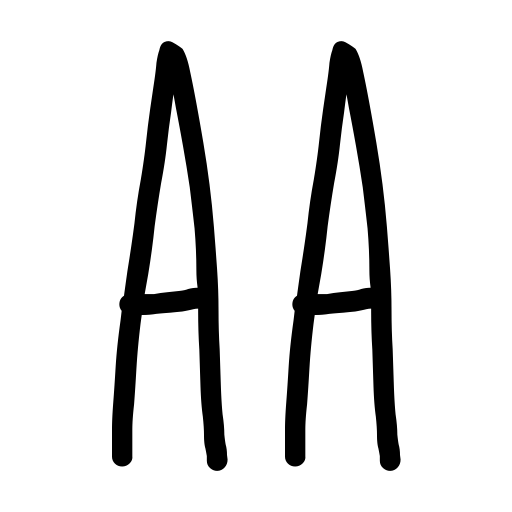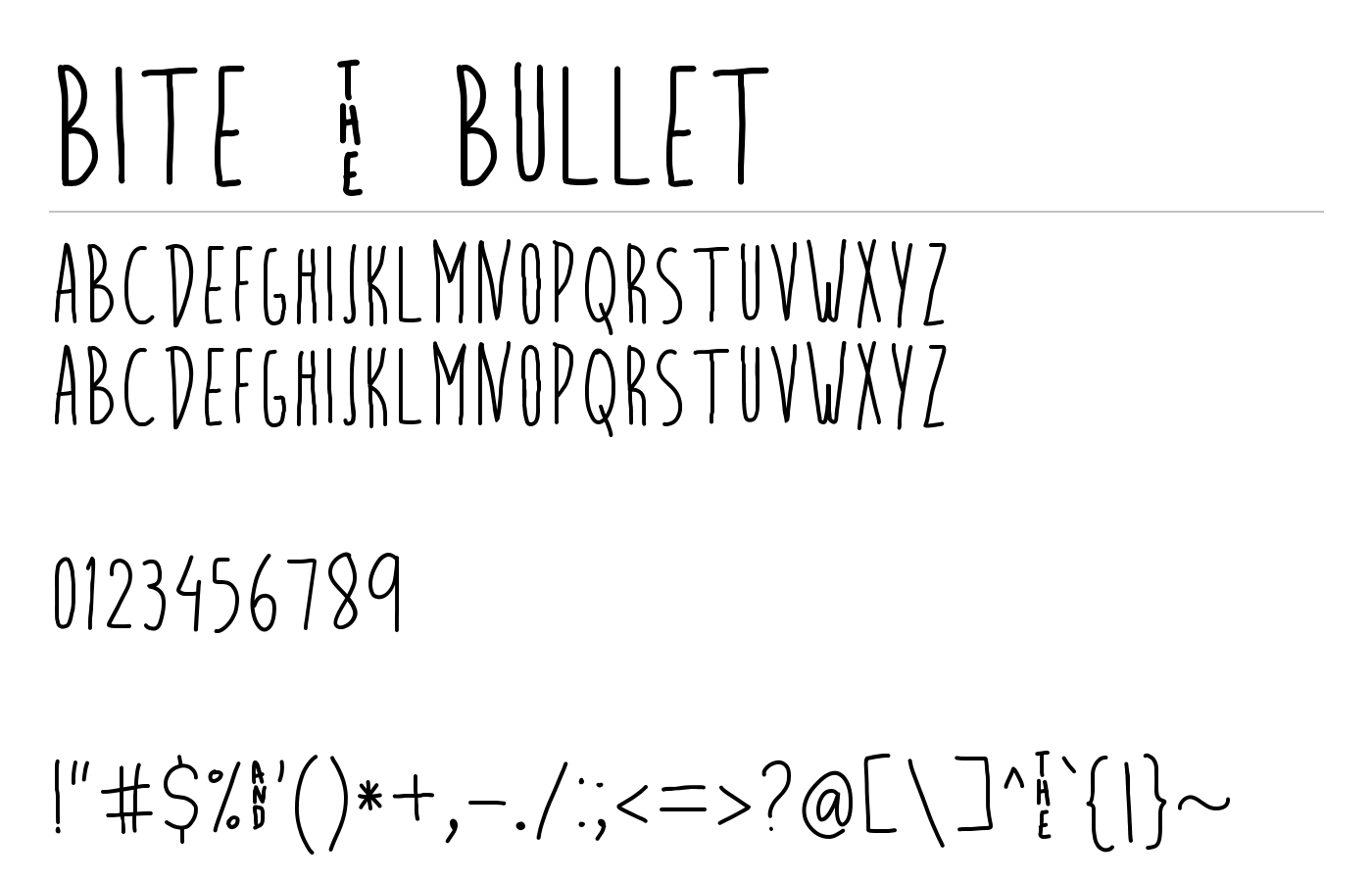
Bite _ Bullet is a tall, narrow sans serif font with a playful, hand-drawn style that feels casual and approachable. Its thin, uneven strokes and quirky letterforms create a unique, informal vibe, making it ideal for creative projects, informal branding, and youthful designs. This font works well in headlines or display uses where a fun, distinctive personality is needed.
Bite _ Bullet Font